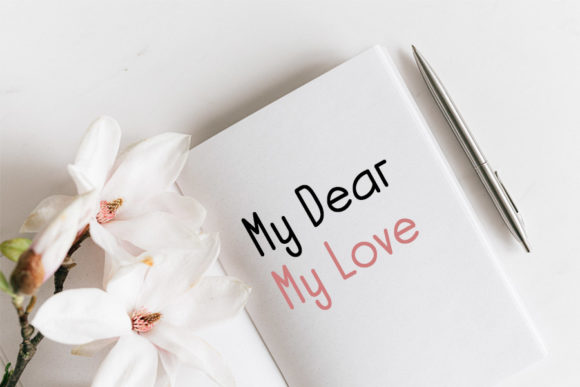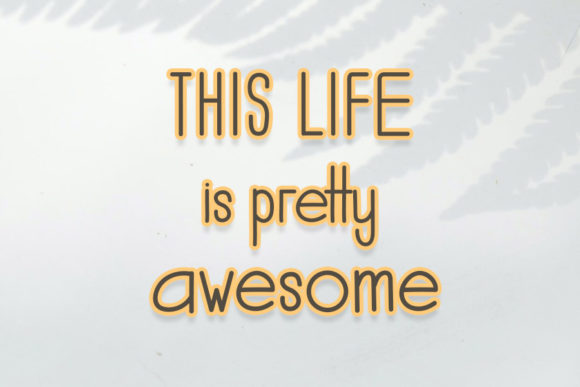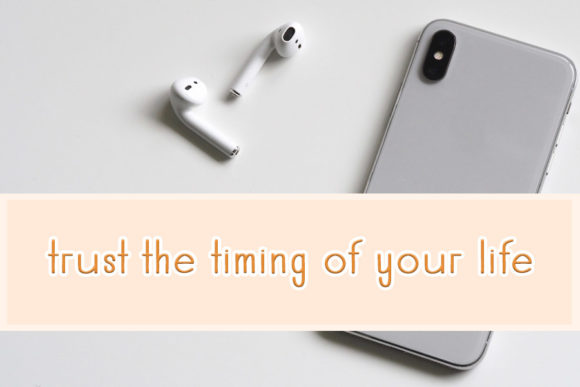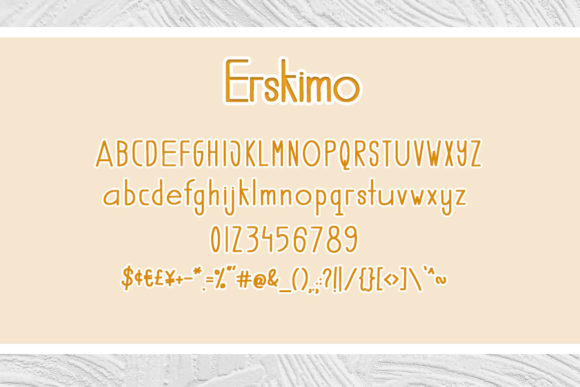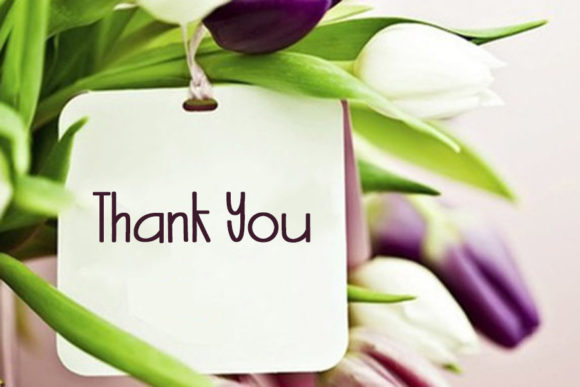
Discover the Charm of Erskimo Font: A Sweet and Simple Handwritten Delight
Are you on the hunt for a font that adds a touch of sweetness and simplicity to your designs? Look no further than the Erskimo Font! This charming, thin, and simple handwritten font is perfect for a wide range of projects, from crafting and DIY tutorials to branding and marketing materials. In this article, we’ll dive into the world of Erskimo Font and explore its unique features, uses, and benefits.
What is Erskimo Font?
Erskimo Font is a beautiful, handwritten font that boasts a natural and unique style. Its thin and simple lines make it incredibly versatile, allowing it to fit seamlessly into a variety of design contexts. Whether you’re creating a whimsical craft tutorial, a stylish brand logo, or a heartfelt greeting card, Erskimo Font is sure to bring a touch of magic to your project.
The Benefits of Using Erskimo Font
So, what makes Erskimo Font so special? Here are just a few benefits of using this delightful font in your designs:
- Unique and eye-catching: Erskimo Font has a one-of-a-kind style that’s sure to capture attention and leave a lasting impression.
- Versatile: Its thin and simple lines make it perfect for a wide range of projects, from delicate crafts to bold branding materials.
- Easy to read: Despite its whimsical nature, Erskimo Font is incredibly legible, making it perfect for both headings and body text.
- Emotional connection: The handmade quality of Erskimo Font creates an instant emotional connection with your audience, making your designs feel more personal and relatable.
Using Erskimo Font in Your Designs
Erskimo Font is incredibly easy to use, even for those with limited design experience. Here are a few ideas to get you started:
- Crafting and DIY tutorials: Add a touch of whimsy to your crafting and DIY tutorials with Erskimo Font. Use it to title your projects, create cute labels, or add a personal touch to your instructions.
- Branding and marketing: Use Erskimo Font to create eye-catching brand logos, social media graphics, and marketing materials that showcase your unique personality.
- Greeting cards and invitations: Add a touch of sweetness to your greeting cards and invitations with Erskimo Font. Perfect for birthdays, weddings, and other special occasions.
- Blogging and website design: Use Erskimo Font to create beautiful headings, titles, and other design elements for your blog or website.
Tips and Tricks for Working with Erskimo Font
Here are a few tips and tricks to help you get the most out of Erskimo Font:
- Experiment with colors: Erskimo Font looks amazing in a variety of colors, from soft pastels to bold brights. Experiment with different hues to find the perfect match for your design.
- Mix and match: Combine Erskimo Font with other fonts and design elements to create unique and eye-catching combinations.
- Play with sizes: Erskimo Font looks great in a range of sizes, from tiny details to large headings. Experiment with different sizes to add visual interest to your design.
In conclusion, Erskimo Font is a sweet, thin, and simple handwritten font that’s perfect for designers and crafters alike. Its unique and eye-catching style makes it incredibly versatile, and its easy-to-read lines make it perfect for a wide range of projects. Whether you’re creating crafts, branding materials, or website designs, Erskimo Font is sure to bring a touch of magic to your work. So why wait? Fall in love with Erskimo Font and bring your projects to the highest levels!